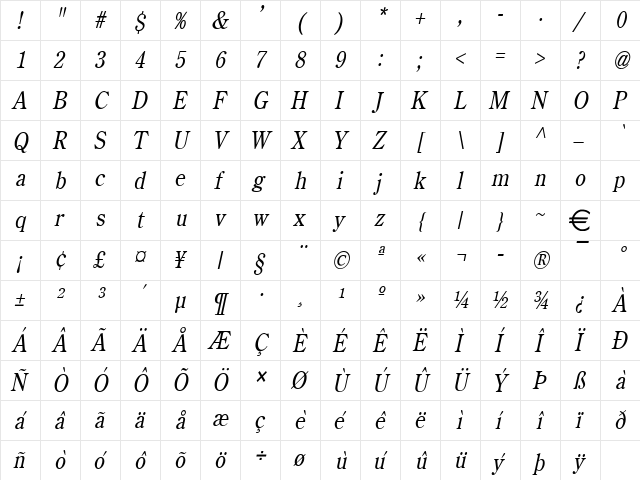
CentimeCondensed Italic Font Preview
Design Context for CentimeCondensed Typeface
CentimeCondensed offers clean, dependable letterforms without strong stylistic allegiance, making it a practical choice for designers who need flexibility. The slanted form adds forward momentum and visual energy. The condensed width makes it efficient for tight spaces without sacrificing legibility.
Pro Tip: Try CentimeCondensed for annotation and caption copy alongside an upright companion — the contrast in angle creates a dynamic but ordered typographic system.